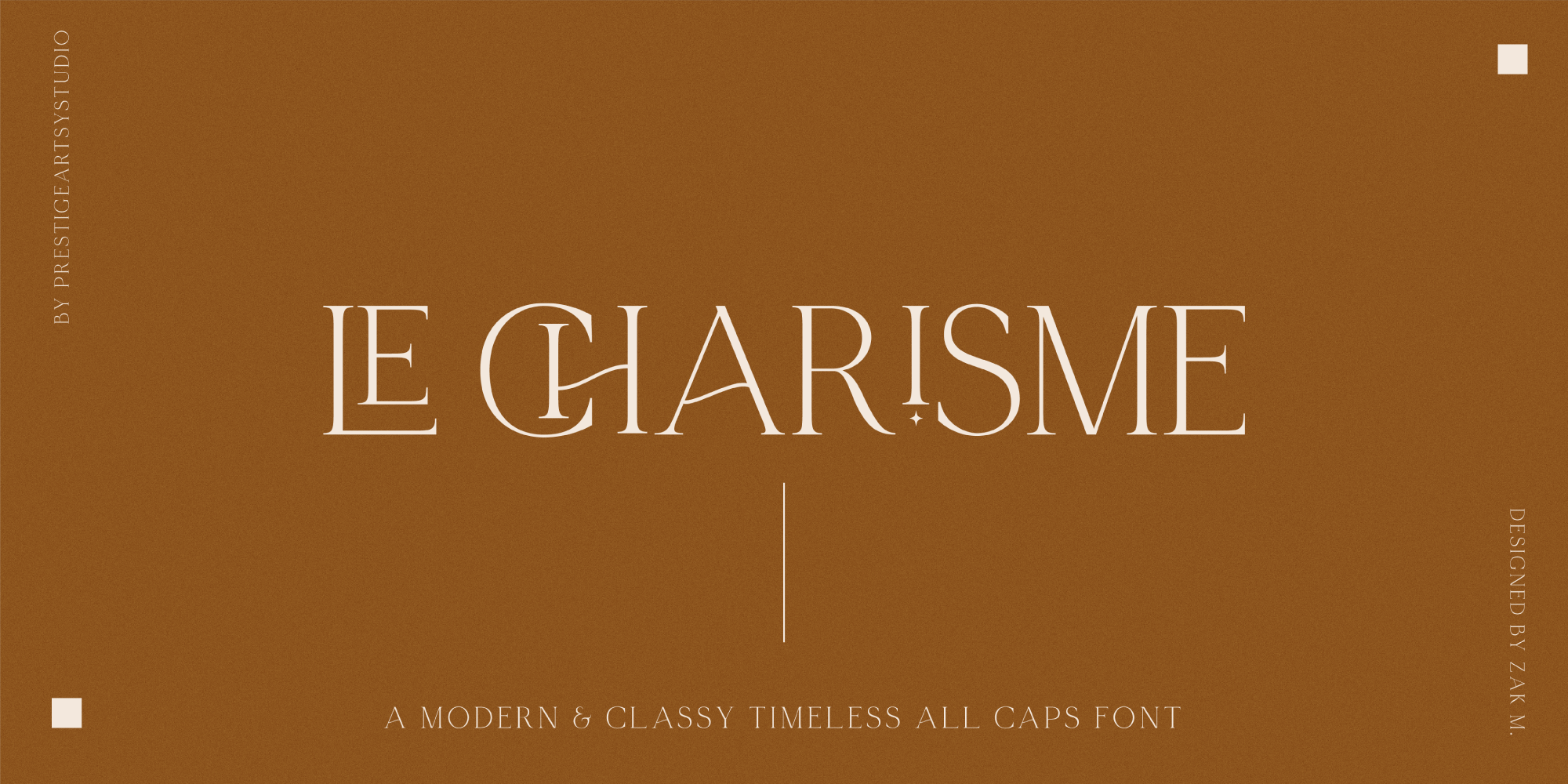
Le Charisme Font is ideal for luxury fashion branding, high-end boutique signage, premium perfume packaging, sophisticated restaurant menus, elegant wedding invitations, upscale beauty product labels, French-inspired café designs, luxury hotel communications, fine jewelry branding, premium wine labels, high-fashion magazine layouts, and exclusive event promotions. This distinguished typeface excels in applications requiring French elegance and timeless sophistication, making it perfect for luxury brands, premium hospitality, and refined lifestyle products.
What makes Le Charisme Font exciting is its captivating blend of French sophistication and contemporary elegance. The font features graceful letterforms with subtle curves and refined details that embody the essence of Parisian chic and timeless charm. Its carefully balanced proportions and elegant character spacing create an atmosphere of luxury and exclusivity, while maintaining exceptional readability across all applications. The font's distinctive personality captures the sophisticated allure of French typography tradition while offering modern versatility for contemporary design needs.
The Le Charisme Font family typically includes multiple weights such as Thin, Light, Regular, Medium, Bold, and Black variations, along with their corresponding italic styles. Many collections also feature elegant script versions, decorative alternates, and sophisticated ligatures that enhance the font's French-inspired character. Some premium packages include ornamental elements, flourishes, and special accent characters that provide complete typographic flexibility for luxury design projects.
Le Charisme Font Free Download represents the epitome of French typographic excellence and sophisticated design sensibility. This remarkable typeface brings instant prestige and European elegance to any project, making it particularly valuable for luxury brands seeking to establish premium positioning and refined brand identity. The font's versatile nature allows it to perform beautifully in both large display applications and delicate text settings.
Designers treasure Le Charisme Font for its ability to instantly convey sophistication, luxury, and French-inspired elegance. The font's technical excellence ensures flawless rendering across various media and applications, while its aesthetic appeal adds immediate premium quality to any design project. The comprehensive character set includes extended Latin characters, French accents, numerals, punctuation marks, and special symbols, making it particularly suitable for French language projects and international luxury communications.
This exceptional typeface successfully captures the essence of French design heritage while offering modern functionality, providing designers with an authentic tool for creating memorable and sophisticated brand communications that resonate with discerning audiences seeking genuine luxury experiences.